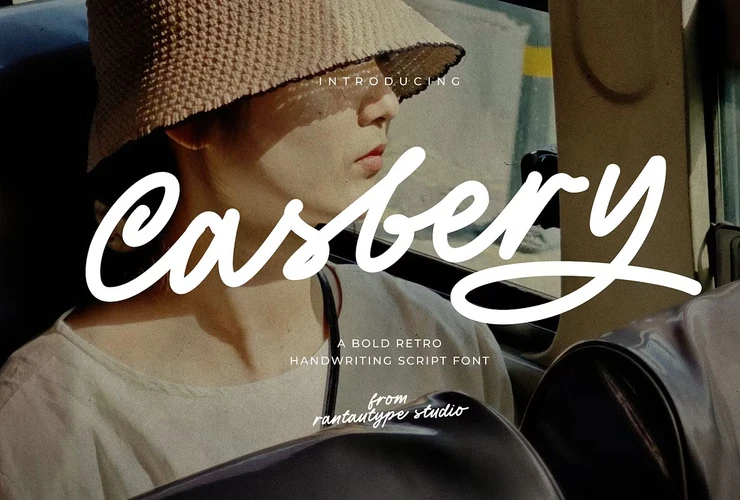
Casbery Script Font: A Signature Typeface for Stylish Branding
Casbery Script Font is an exquisite signature-style typeface inspired by chic script fonts. Designed for versatility and elegance, Casbery is the ideal choice for creative projects that demand a personal, handwritten touch. Whether it’s for branding, photography watermarks, magazine covers, or wedding invitations, this script font adds a layer of sophistication to any design.
Key Features of Casbery Script Font:
Versatile Usage: Casbery shines in various applications, from corporate branding and business cards to album covers and chic lifestyle designs.
Complete Glyph Set: The font includes standard glyphs, numerals, functional symbols, and stylish alternates and ligatures, offering designers endless customization possibilities.
Multilingual Support: The font is equipped with multilingual characters, supporting over 50 languages, making it suitable for global brands and diverse audiences.
Why Choose Casbery Script Font?
Casbery is more than just a font; it’s a statement of elegance. Its refined strokes and fluid curves make it the go-to choice for designers and creatives aiming to infuse a personal touch into their work. From wedding invitations and business projects to magazine layouts and lifestyle branding, Casbery’s handcrafted essence delivers sophistication and charm in every character.
For those seeking to enhance their designs with a signature style, Casbery Script Font offers the perfect blend of elegance and functionality. Its versatility, paired with a broad range of features, makes it an essential asset in any designer’s toolkit.